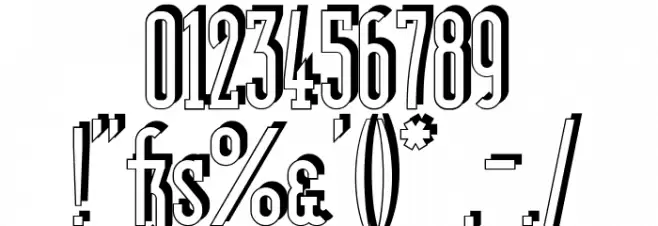
Berlin Email Serif Shadow Font
Berlin Email Serif Shadow Description
This font features a bold and striking serif style with a distinctive shadow effect that adds depth and dimension to each character. The uppercase letters are tall and commanding, while the lowercase letters maintain a consistent style with slightly more rounded edges. The numerals are clear and easy to read, matching the overall boldness of the alphabet. Special characters are included, maintaining the same shadowed effect, which enhances the decorative appearance. This font is ideal for making a statement, with its strong presence and unique shadowing.
A bold serif font with a unique shadow effect, perfect for impactful designs from Uncategorized fonts.